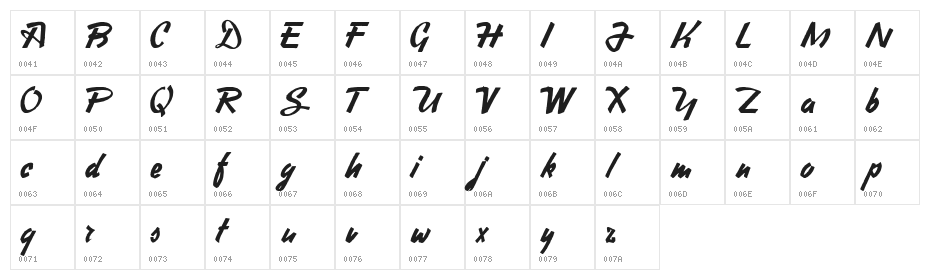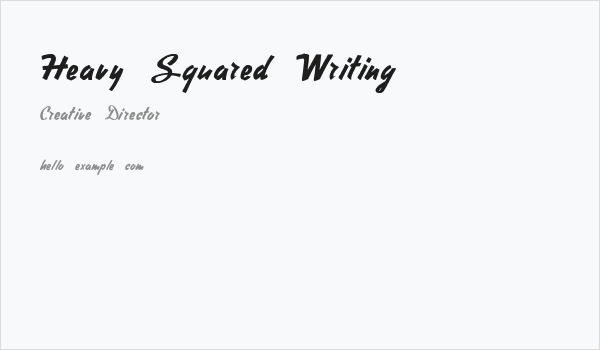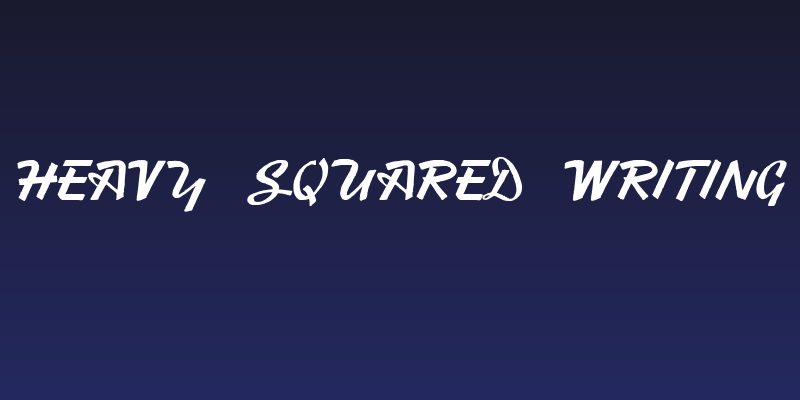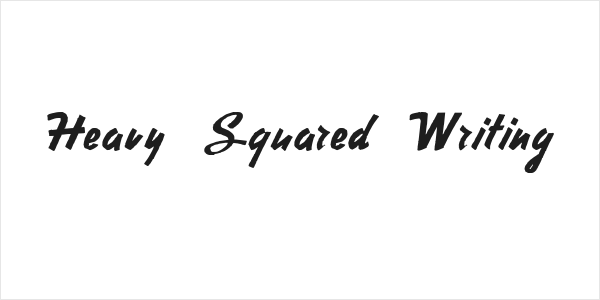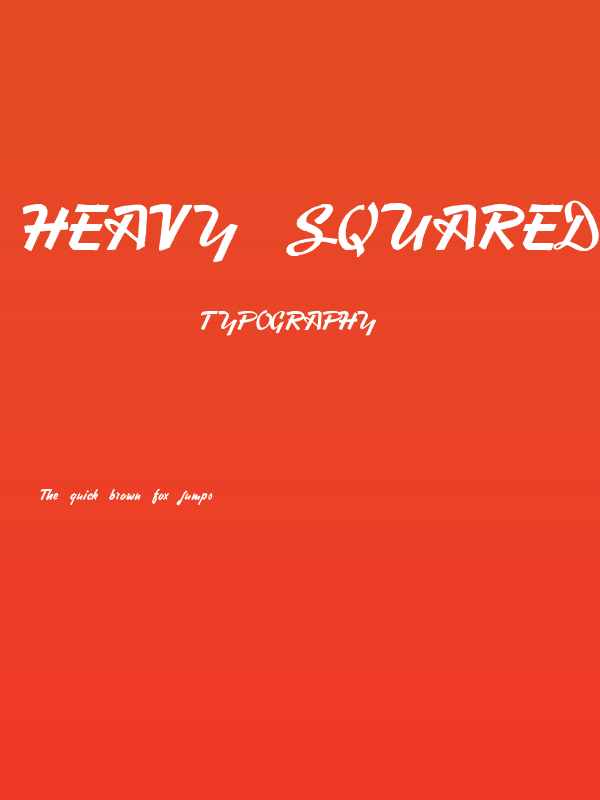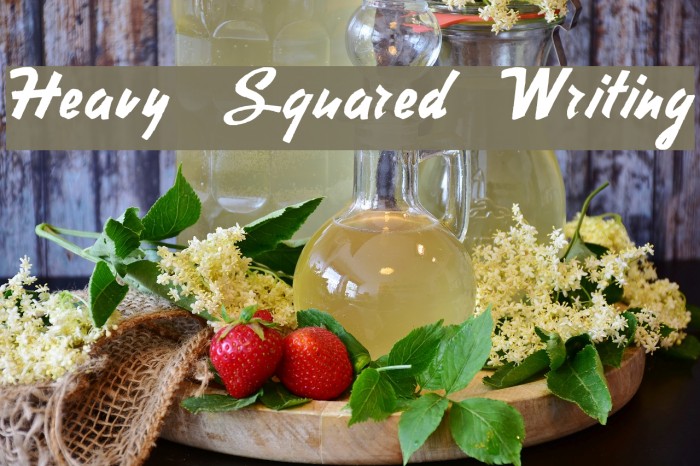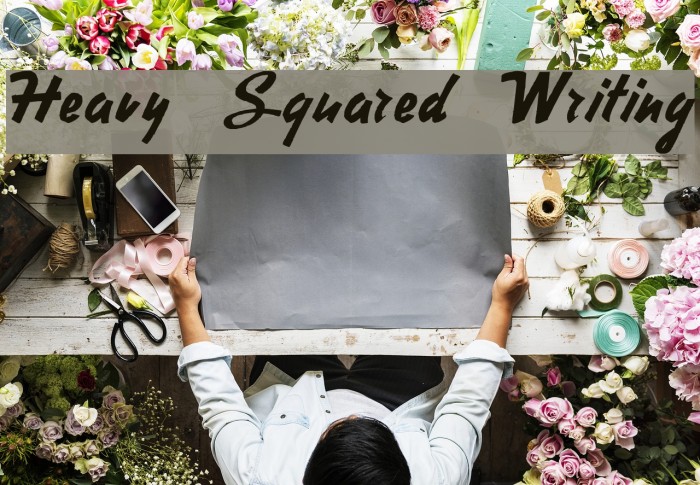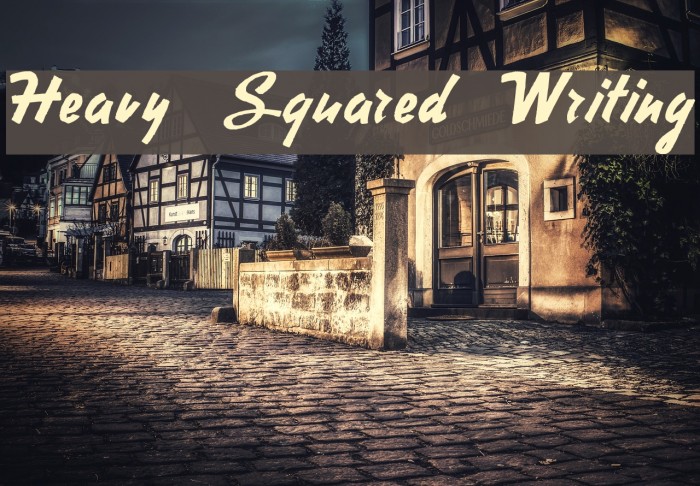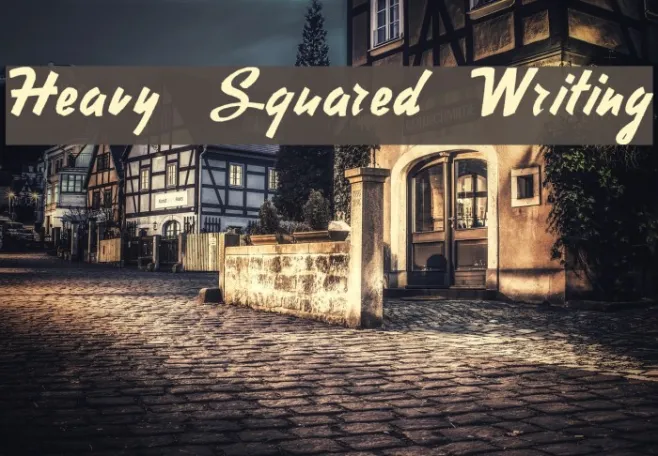
Heavy Squared Writing Font
Heavy Squared Writing Description
This font features a bold and dynamic script style with a strong presence. The letters are heavily weighted, giving them a robust and impactful appearance. Each character is designed with a squared-off, angular approach, adding a unique geometric flair to the script. The uppercase letters stand tall and confident, while the lowercase letters maintain a consistent flow with slightly exaggerated curves. The font's overall aesthetic is both modern and expressive, making it suitable for projects that require a bold statement. The spacing between characters is tight, enhancing the cohesive look of the text. This font is ideal for creative and artistic applications where a strong visual impact is desired.
| Proposed Projects | Ideal for branding, posters, headlines, and artistic designs that require a strong visual impact. |